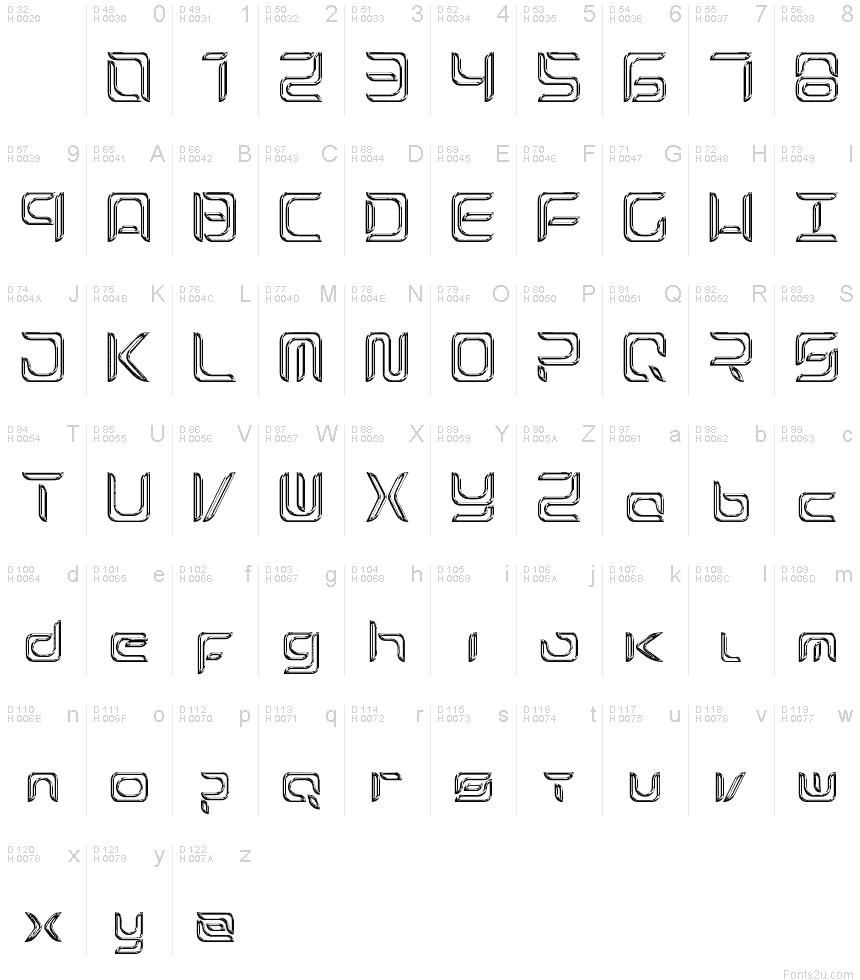
Exynos Reflecter is a free futuristic outlined display font with broad tubular letterforms and a sleek machine-made profile. Rounded corners and long horizontal strokes are cut by sharp breaks and layered inner lines that resemble reflections on polished metal.
Technology and science fiction are its clearest territory, with the lettering suited to game graphics and electronic music artwork. It can also shape automotive branding or event posters through the same streamlined contours. Beside spacecraft, chrome hardware, or circuit illustrations, its reflective channels can continue the metallic surfaces already present in the artwork.